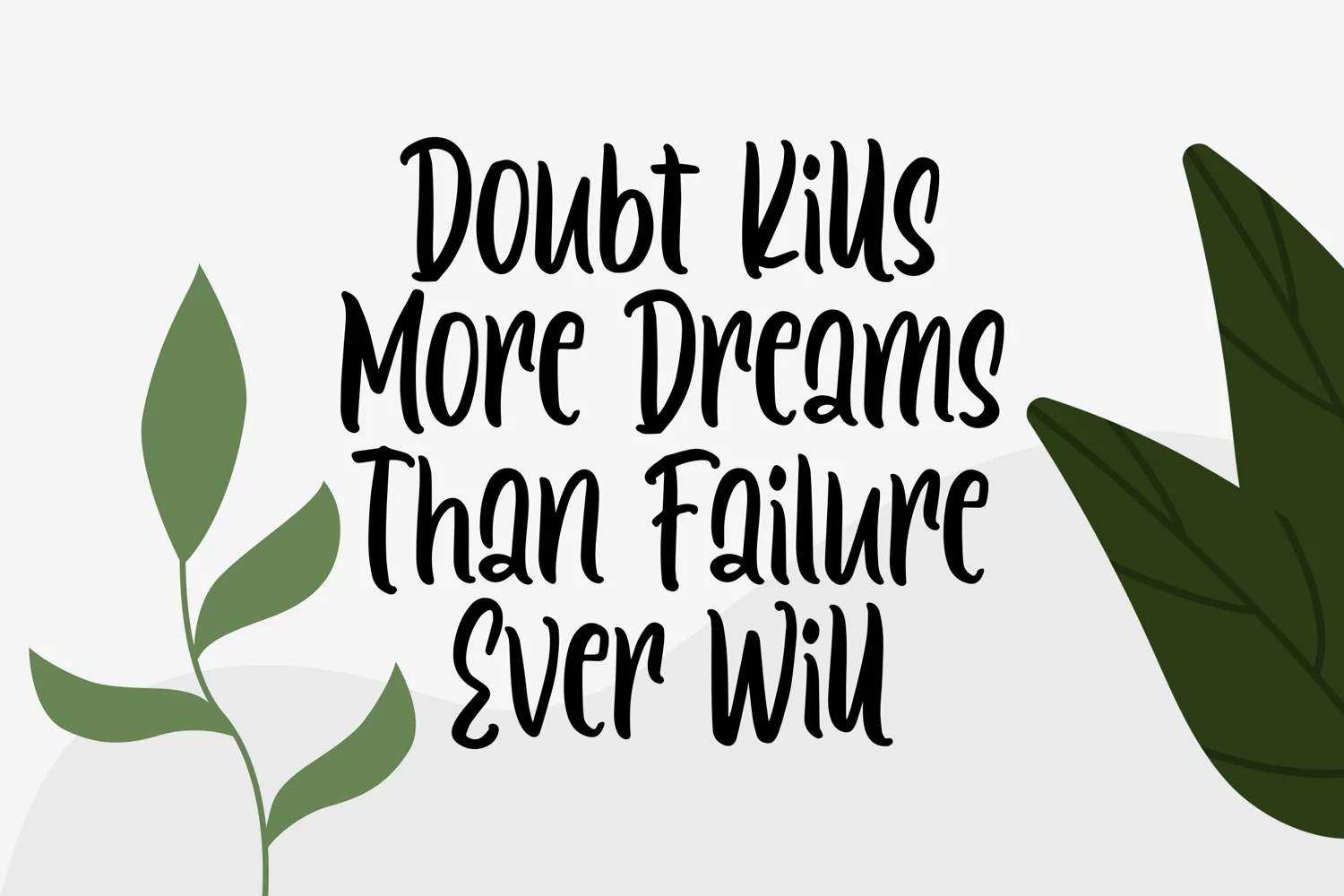
Estarossa - Handmade Lovely Font that contain lowercase, uppercase, symbol, and also support multi language. There’s a lot ligatures in this font. This Font also comes with ligatures, alternates and many more. this font suitable for fashion, branding, catalog and other design what you want.